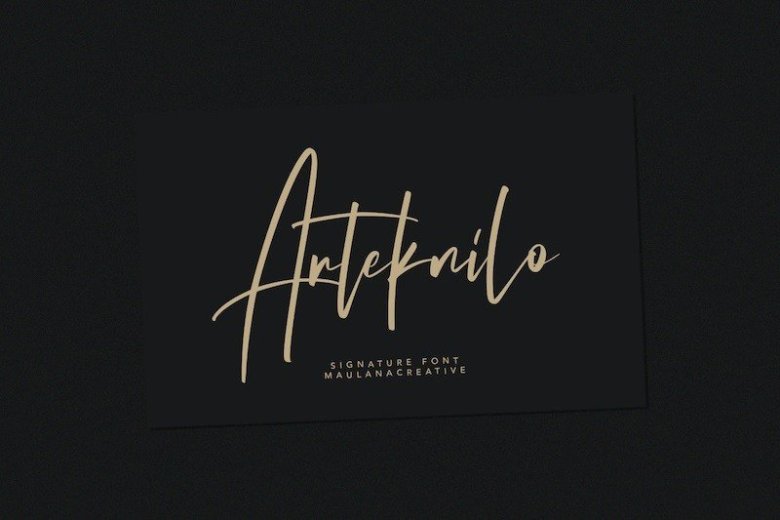
Arteknilo Signature Script Font
Arteknilo Font is modern signature script font with handwritten, sophisticated flows. This airy font gives a natural feeling because it was originally written by hand. Arteknilo is perfectly suited to signature, stationery, logo, typography quotes, magazine or book cover, website header, flyer, clothing, branding, packaging design and more.